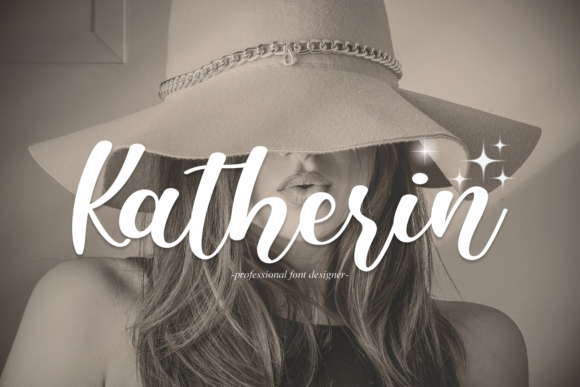
Step into the world of Katherin Font, where your designs will bloom with an aura of exquisite charm. This remarkable script font, a creation of fana merah jambu, is a testament of elegance and sophistication, tailored to infuse your projects with a touch of timeless beauty.
With its graceful curves and delicate strokes, Katherin Font carries an inherent charm that transforms your words into captivating expressions. The impeccable craftsmanship behind each letter ensures that your message will shine with a luminosity that's both alluring and unforgettable. As you let Katherin's ethereal essence dance across your designs, prepare to embark on a creative journey like no other.
From the soft whisper of love letters to the bold declarations of artistic expression, Katherin Font is your trusted companion, elevating your words to new heights. Its versatility knows no bounds, adapting seamlessly to a symphony of design styles. Whether you're crafting heartfelt wedding invitations, enchanting logos that leave a lasting impression, or designing breath-taking advertisements, Katherin Font will paint your vision with unmatchable finesse.
Dive into the depths of Katherin's boundless creativity and discover a font that ignites your imagination. Let your designs transcend the ordinary and blossom into masterpieces that resonate with beauty, elegance, and a touch of timeless grace. Embrace the allure of Katherin Font today and unveil the boundless possibilities that await your creative touch.
For those with a taste for the extraordinary, Katherin Font beckons you to embark on a creative voyage where boundaries dissolve and inspiration knows no limits. As you immerse yourself in the world of this exceptional font, you'll discover a newfound appreciation for the power of words, transformed into visual symphonies that captivate and inspire.